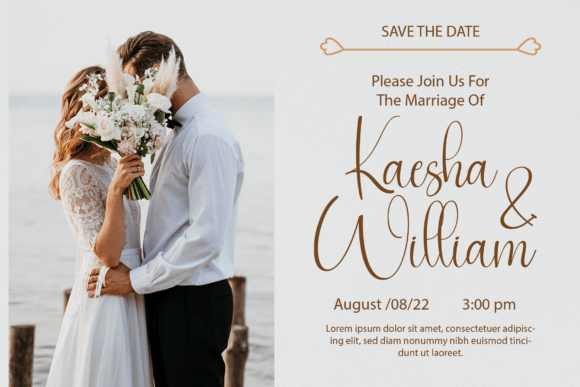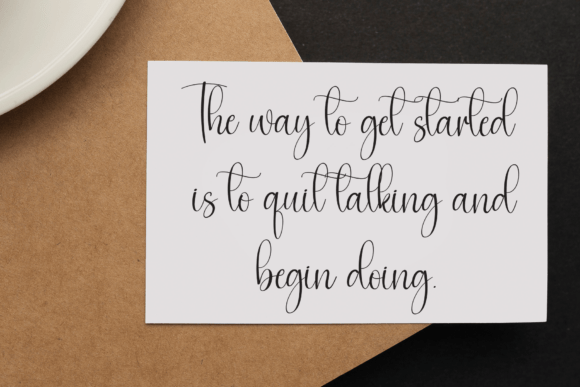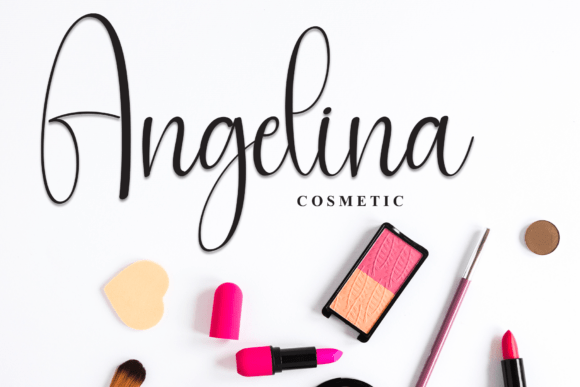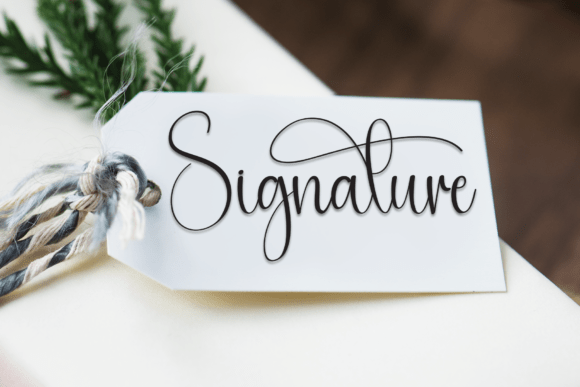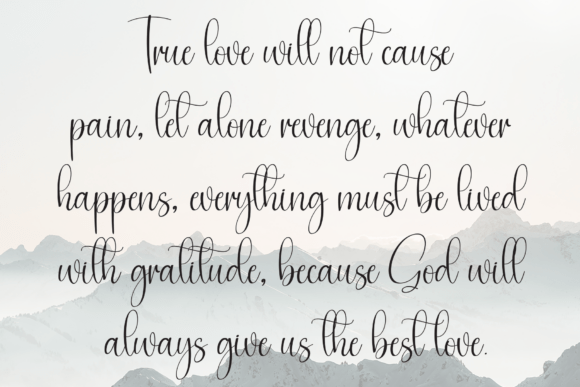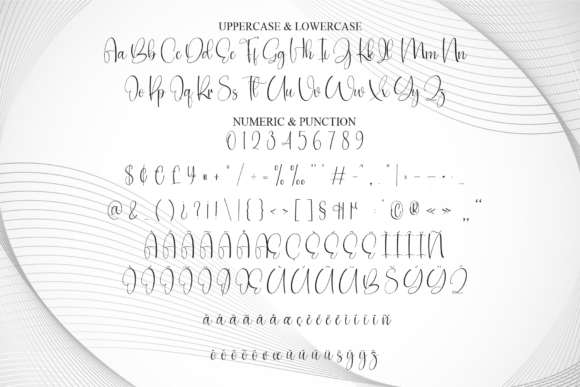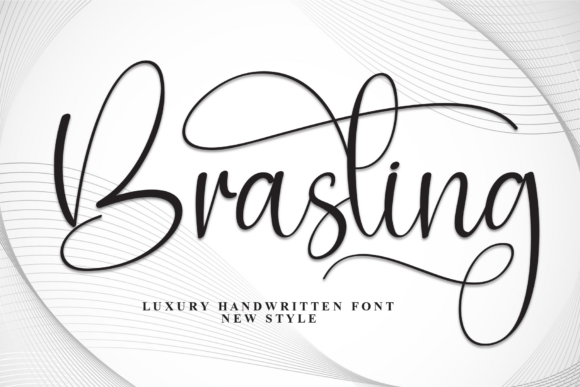
The Designer’s Delight: Brasting Font
I’ll never forget the time I was working on a branding project for a luxury wedding planner. My client wanted a font that exuded elegance, sophistication, and a touch of whimsy. I spent hours scouring the internet for the perfect typeface, but nothing seemed quite right. That was until I stumbled upon Brasting Font. ✨
This stylish handwritten script font has been a game-changer for my design projects, and I’m excited to share its beauty with you. Brasting combines elegance with a modern flair, making it perfect for branding, invitations, social media, and more.
A Personal Review: What I Love and What I Don’t
- ✨ Elegant, flowing strokes that add a touch of sophistication to any project
- ✅ Organic curves that bring warmth and personality to your designs
- 💫 Perfect for branding, invitations, and social media graphics
- 🎨 Highly versatile and pairs well with a variety of fonts and design elements
The Not-So-Good Stuff
While Brasting Font is a stunning typeface, it’s not without its quirks. 🤔 Here are a few things to keep in mind:
- ⚠️ Some users may find the font a bit too ornate for very small text sizes or body copy
The Story Behind Brasting Font
Brasting Font was designed by a talented typographer who’s passionate about creating beautiful, functional typefaces. The font’s inspiration comes from classic calligraphy and handwriting, with a modern twist. 💫
According to the designer, Brasting Font was created to fill a gap in the market for elegant, handwritten script fonts that are both stylish and legible. The result is a typeface that’s perfect for designers, crafters, and creative hobbyists who want to add a touch of sophistication to their projects.
Q: Is Brasting Font suitable for body copy?
A: While Brasting Font is beautiful, it’s best suited for headlines, titles, and short paragraphs. It’s not recommended for long blocks of body copy.